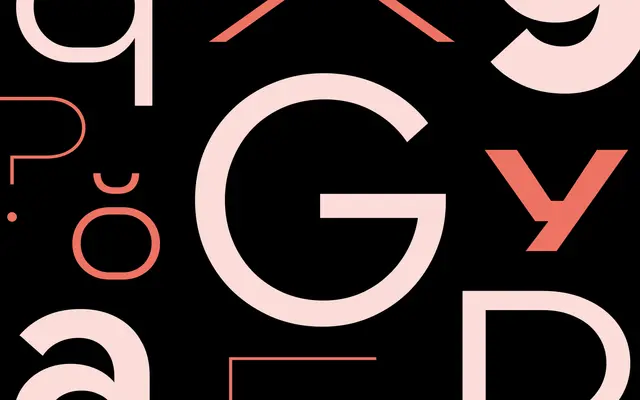
Widescreen
Dalton Maag · Matt Burvill · 2021
sans-serifgeometric to brutalist variable sans
Widescreen specimen from Dalton Maag
A geometric to brutalist variable sans by Matt Burvill that travels from a normal width to an ultra-wide alter ego, with a Mixed axis for distortion.
A variable sans by Matt Burvill that hides a brutalist alter ego inside a polite geometric. Twenty-seven styles spread across three widths (Normal, Extended and UltraExtended) at nine weights from Hairline to Black, with a Mixed axis that lets letters distort across the Width range so a single word can move from upright geometric to ultra-wide brutalism. Reach for it on covers, posters, identity work and campaigns that want typographic transformation as part of the message.
Dalton Maag describe Widescreen as a seemingly normal geometric sans concealing an alter ego of an ultra-wide, brutalist design at the opposite end of its variable Width axis, with Weight and Mixed axes that allow maximum distortion mixing normal and ultra-wide.